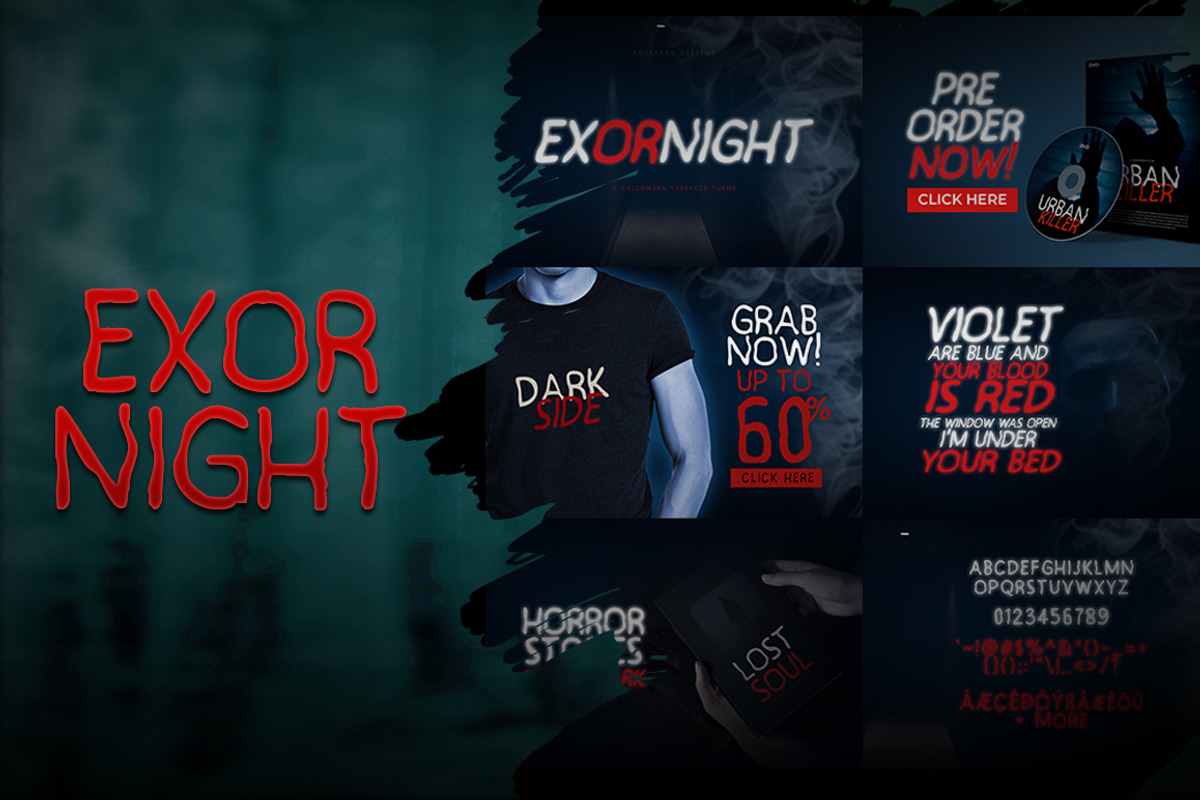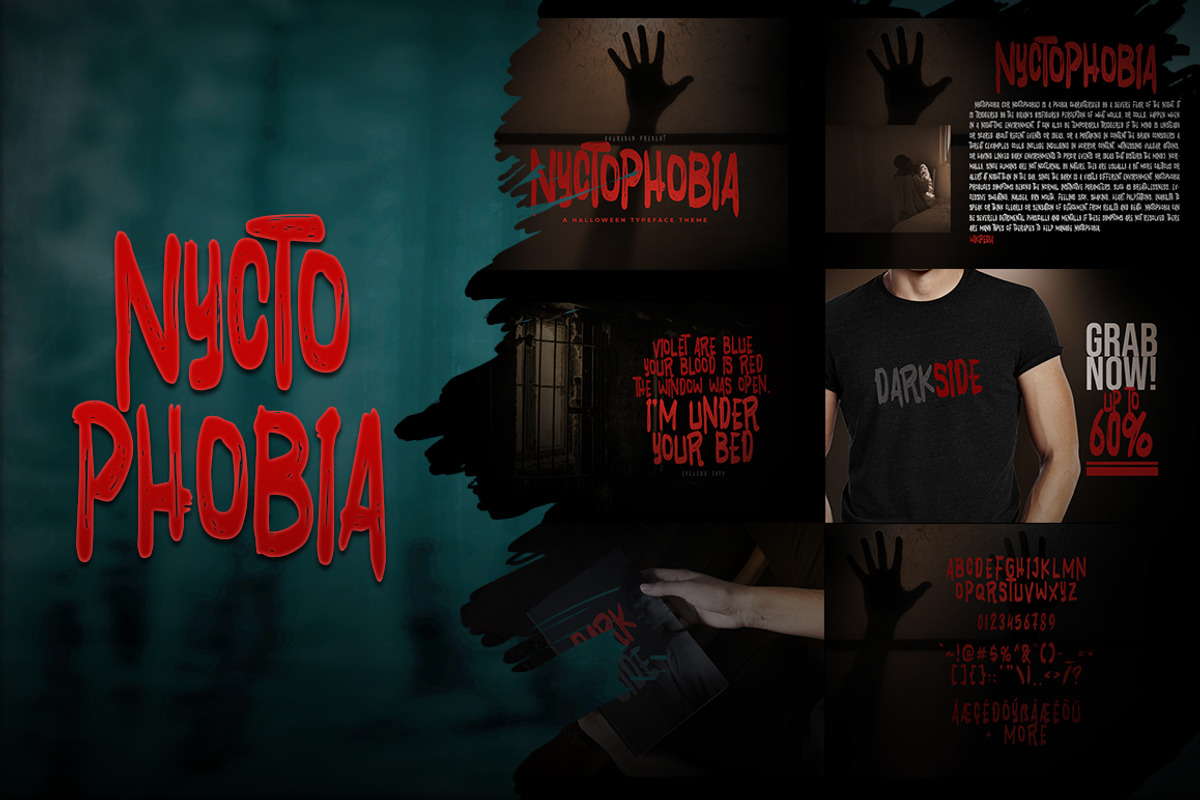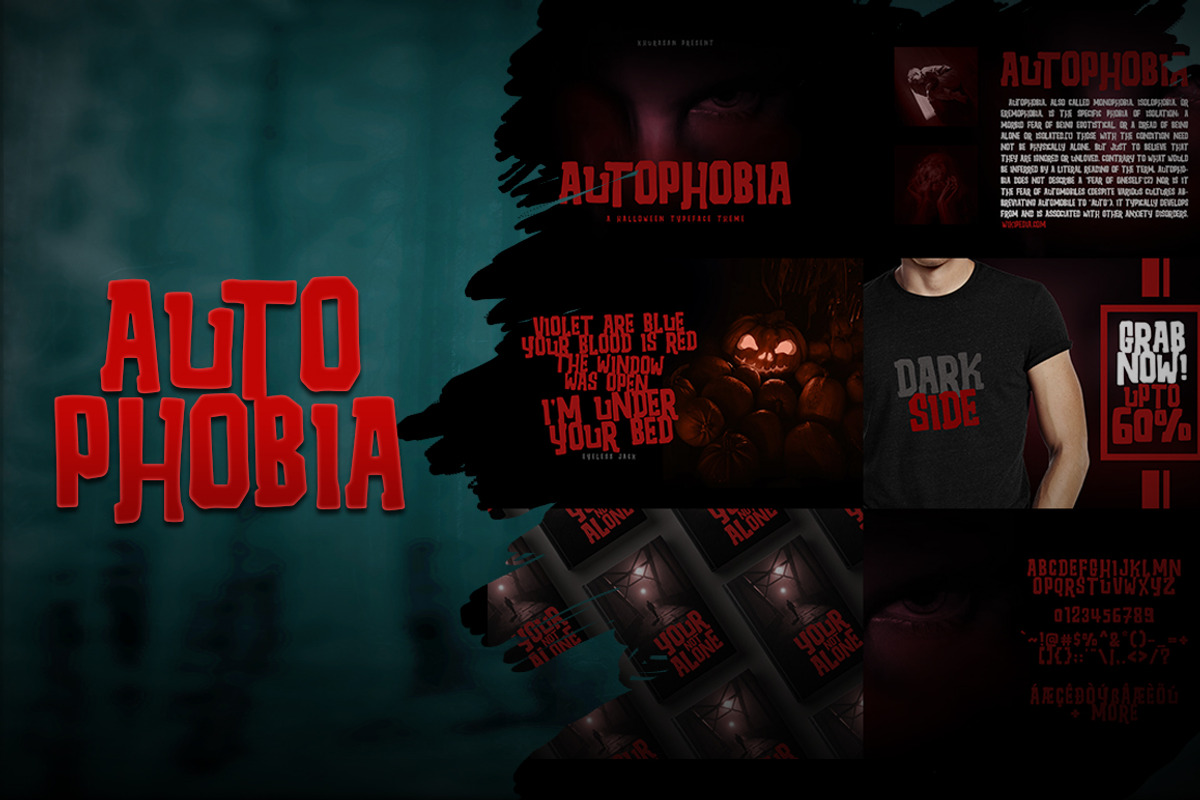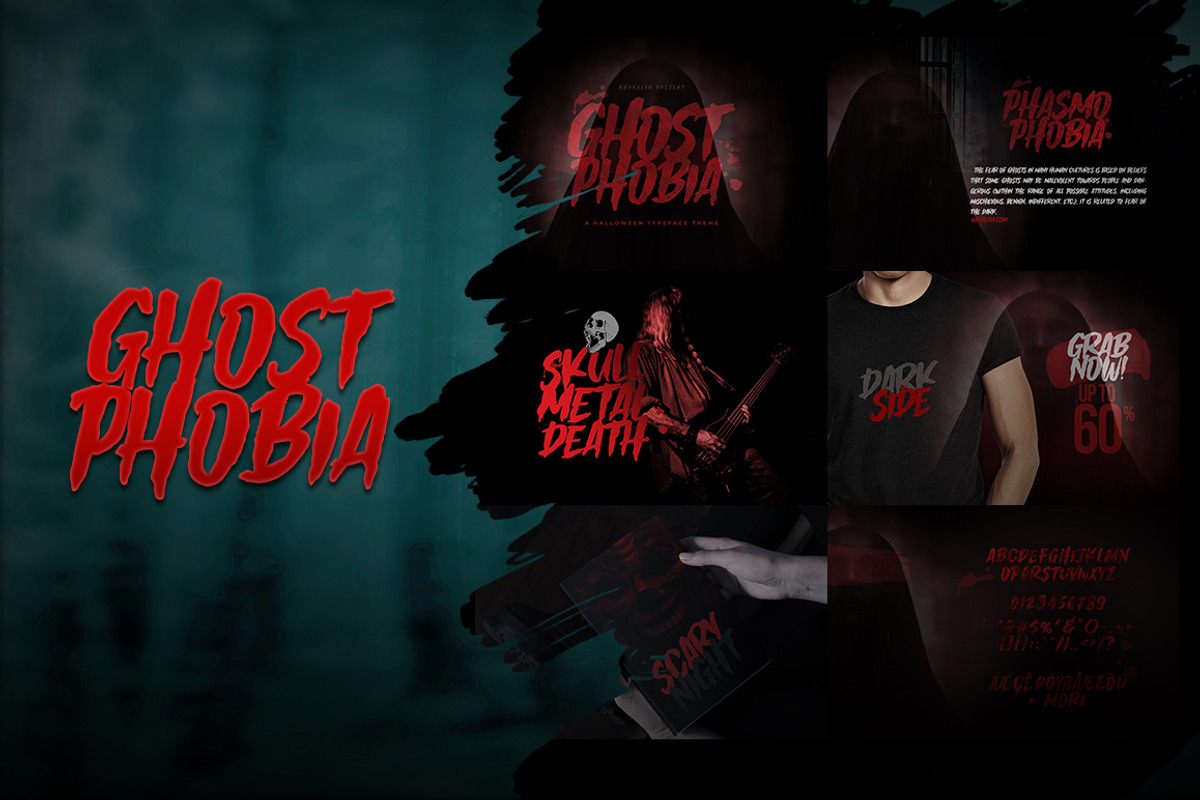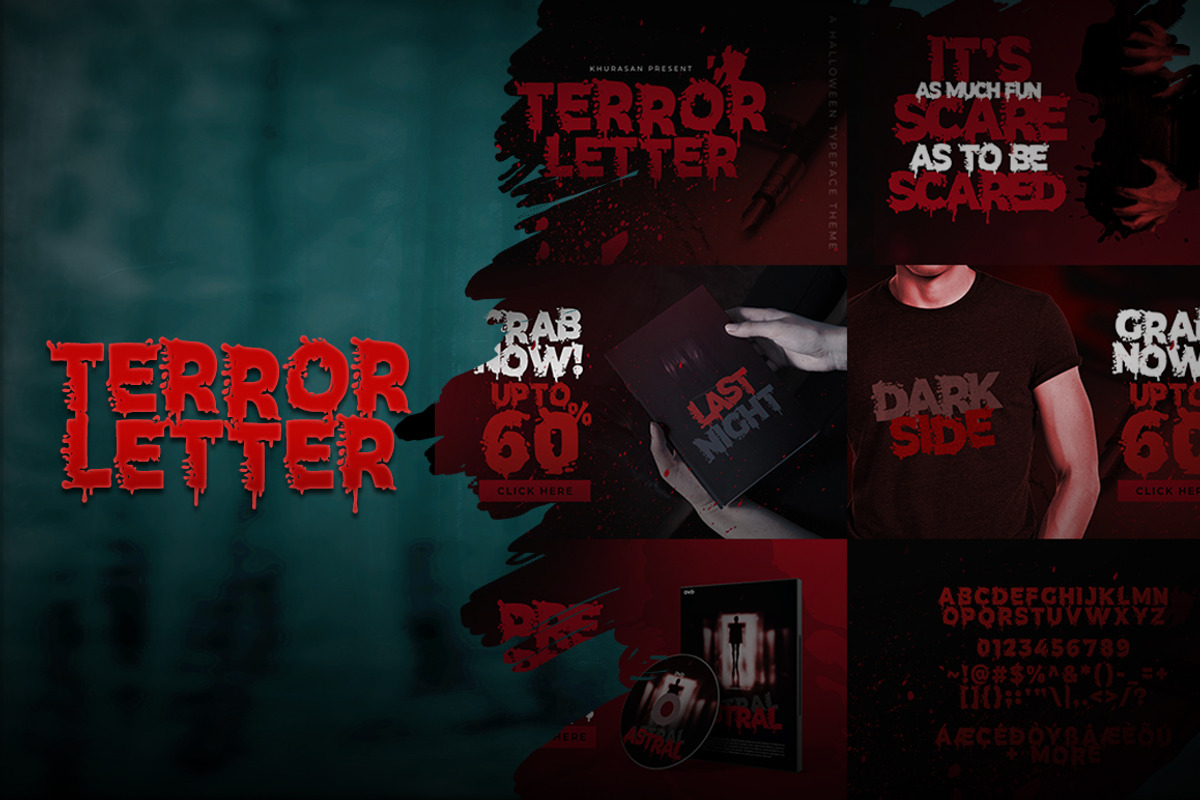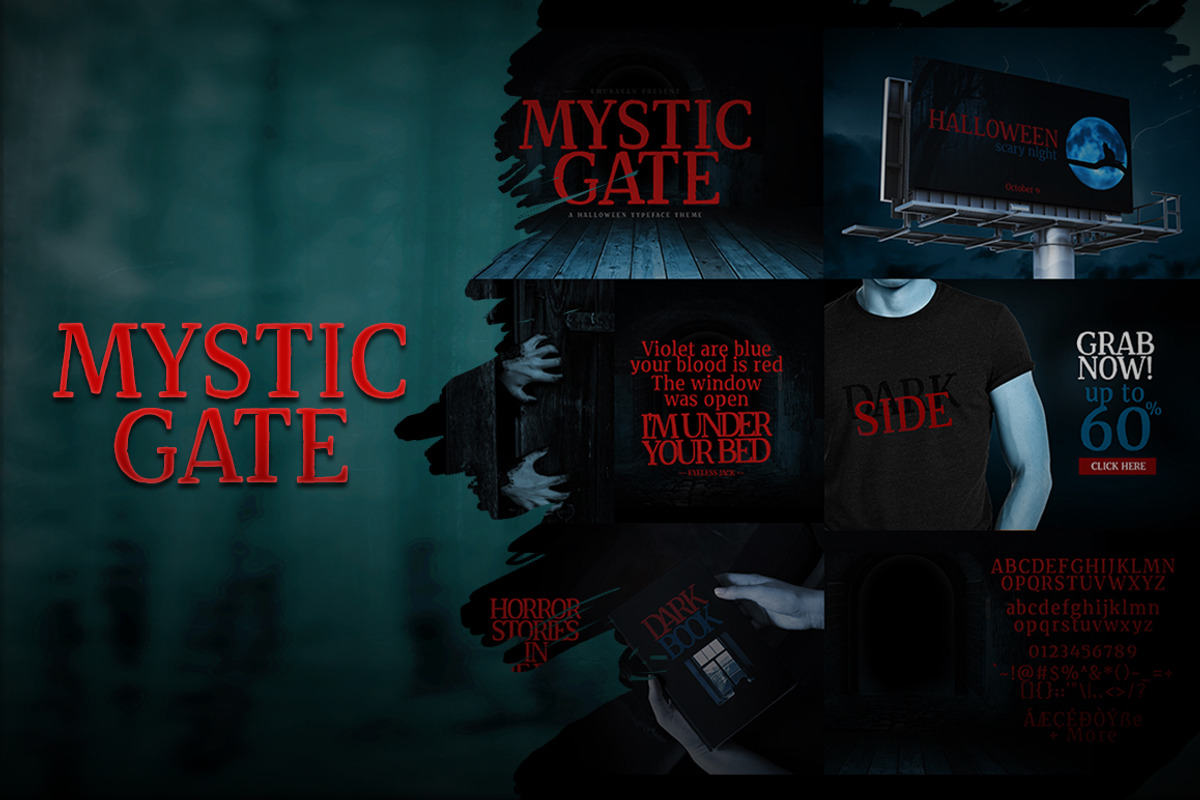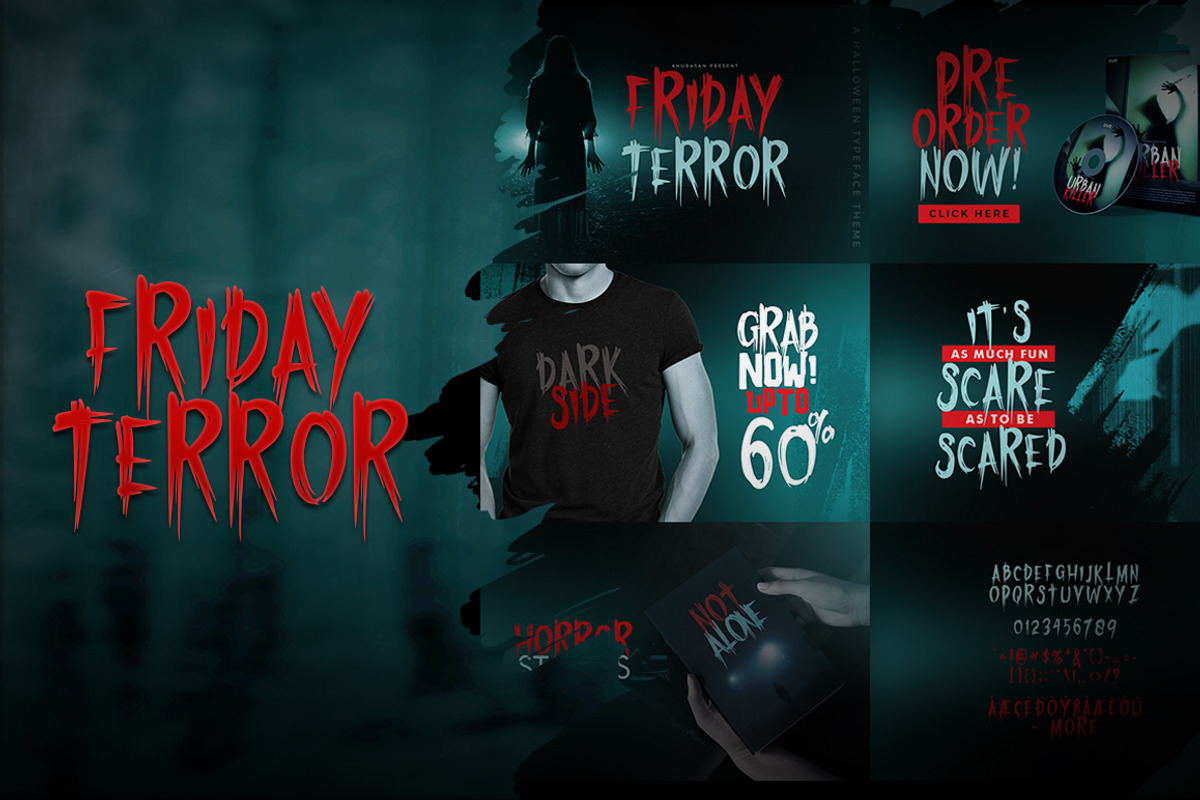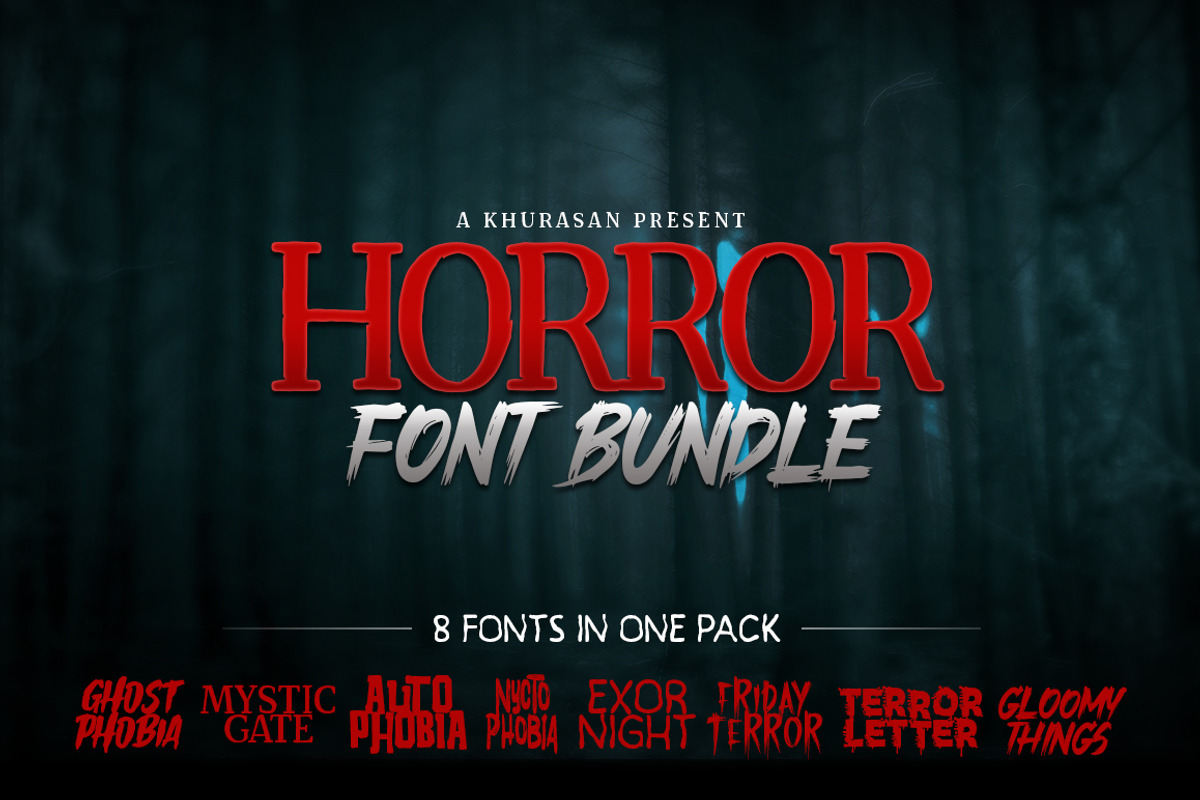
Horror Font Bundle
The Horror Font Bundle is here! Packed with 8 font horror theme only $16. This font bundle contains 8 high quality horror, decorative, scary, and gothic fonts with unique variation styles. The Horror Font is perfect for your horror projects, such as: Movie Poster, Lettering on Cover Books, Album music cover, Logo Brand, and much more.
Font Includes :
- Ghostphobia
- Mystic Gate
- Autophobia
- Nyctophobia
- Exorninght
- Friday Terror
- Terror Letter
- Gloomy Things